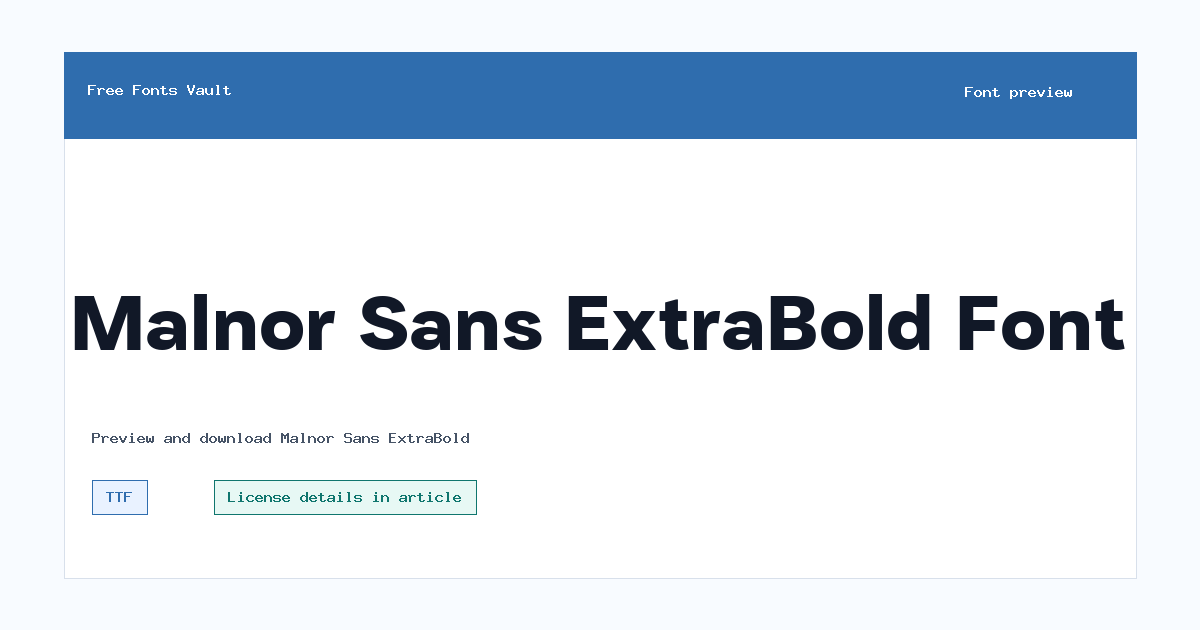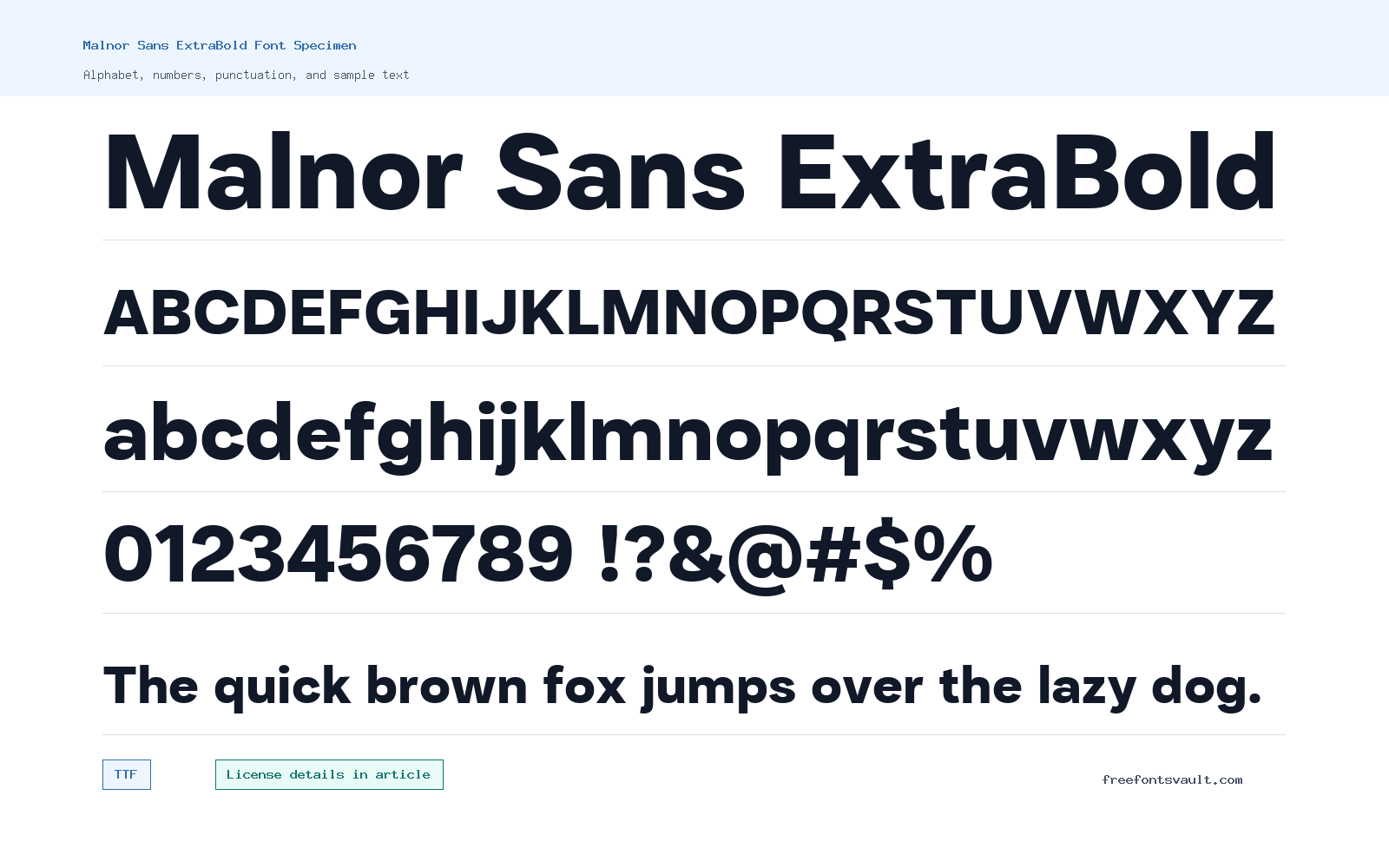
Malnor Sans ExtraBold
- Designer Herlan Nawwi
- Foundry Sikifonts
Malnor Sans ExtraBold font.
Malnor Sans ExtraBold is a heavy sans serif style built for bold, clear display text. Use it when you need strong headlines, poster words, labels, thumbnails, or mockups that need a clean modern voice.
About Malnor Sans ExtraBold
Malnor Sans is a sans serif family designed by Herlan Nawwi and published by Sikifonts. The full family is listed with eighteen styles, while this download focuses on the ExtraBold TrueType file. In this weight, the letterforms are best treated as display type: short, confident words, compact titles, and high-impact text blocks will show its weight more clearly than long paragraphs.
Try Malnor Sans ExtraBold in the preview tool with all-caps headlines, product names, event titles, packaging concepts, and editorial cover lines. Its heavy weight can make small spaces feel crowded, so give it enough letter spacing and line height when using it in stacked text. For body copy, pair it with a lighter neutral sans serif or a readable serif rather than forcing the ExtraBold weight into long reading sections.
- ExtraBold sans serif style for strong display headlines and short text
- Part of the larger Malnor Sans family, which is sold with multiple weights and upright/oblique styles
- Useful for mockups, title testing, posters, packaging concepts, labels, and social thumbnails
- Bold headlines
- Poster titles
- Packaging mockups
- Label design tests
- Display branding concepts
- YouTube or social media thumbnails
- Editorial title work
- Short promotional graphics
Malnor Sans was designed by Herlan Nawwi and published by Sikifonts.
Who designed Malnor Sans?
Malnor Sans is credited to Herlan Nawwi and published by Sikifonts.
What is Malnor Sans ExtraBold good for?
It works best for short, bold display text such as headlines, posters, labels, packaging mockups, thumbnails, and editorial titles.